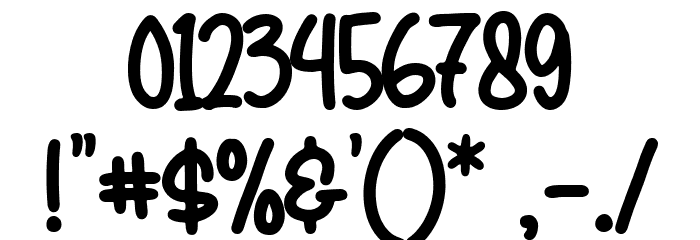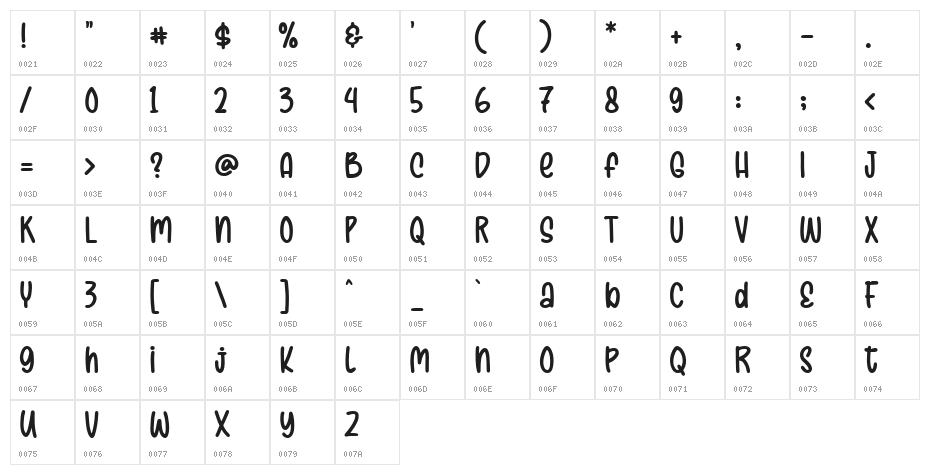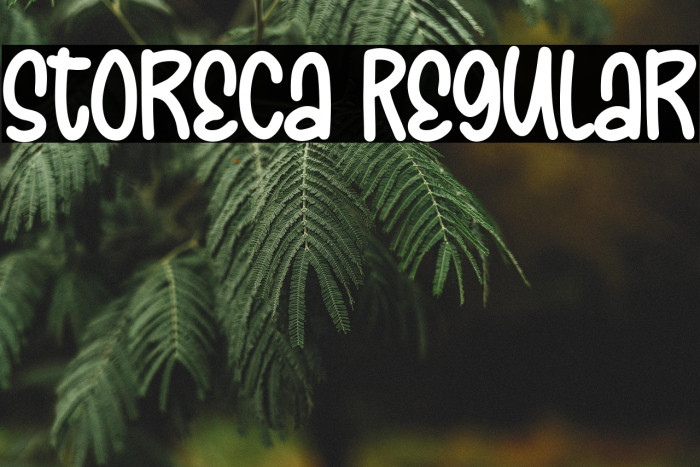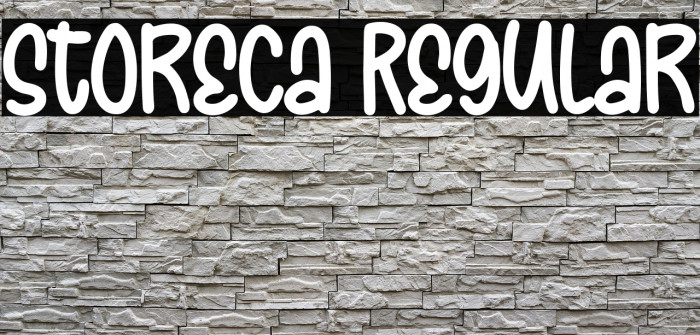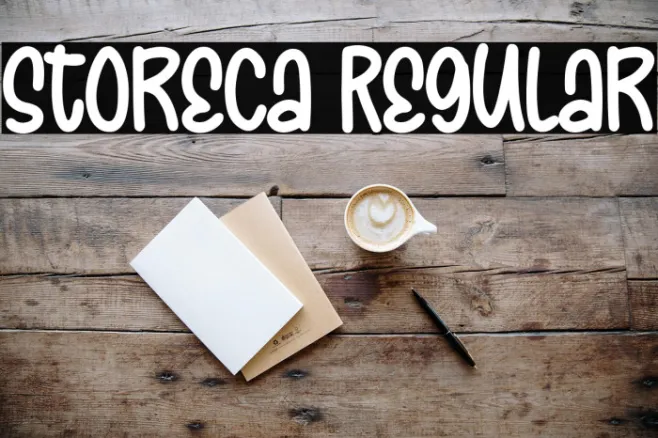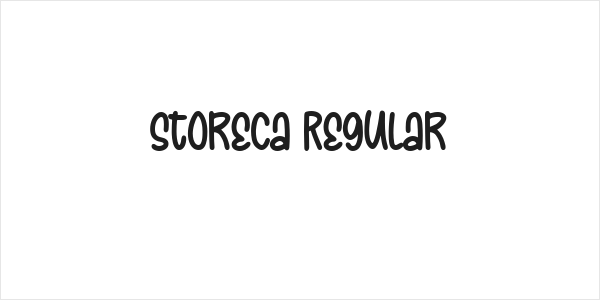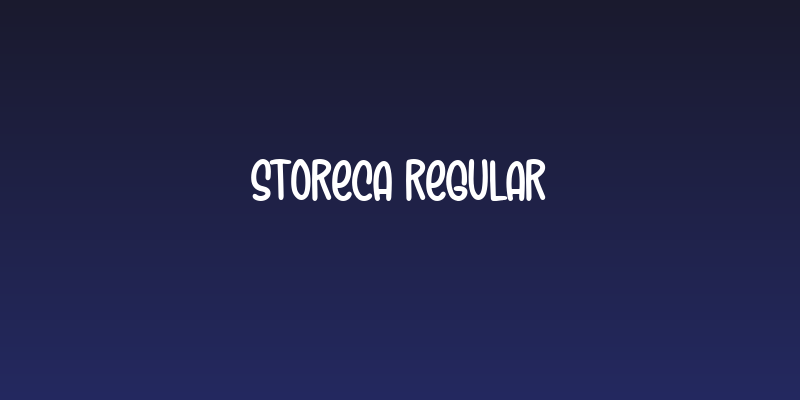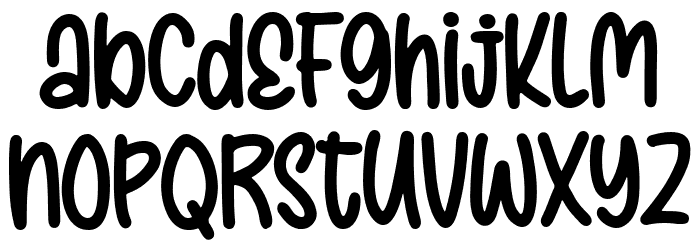
Storeca Regular Font
Storeca Regular Description
This playful and bold font features a handwritten style with rounded edges and a casual, friendly appearance. The letters are slightly irregular, adding a whimsical touch that makes it stand out. The uppercase and lowercase characters maintain a consistent style, with a smooth flow and a slightly condensed form. Numbers and special characters are designed to match the overall aesthetic, ensuring a cohesive look across all text elements. The font's thick strokes and rounded forms give it a strong presence, making it ideal for eye-catching designs.
| Proposed Projects | Ideal for children's books, playful branding, greeting cards, and social media graphics. |